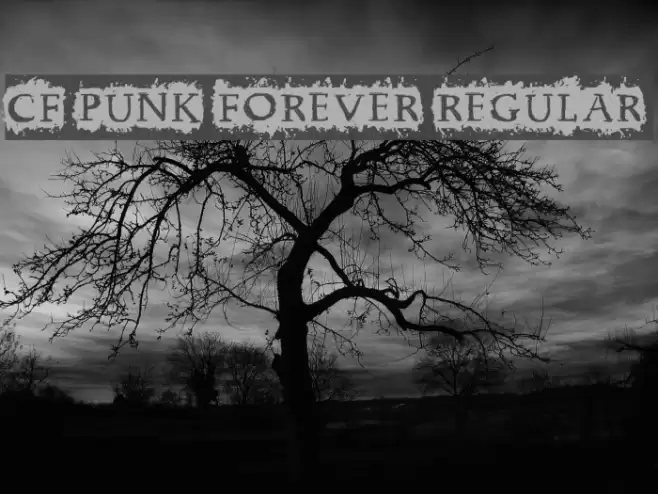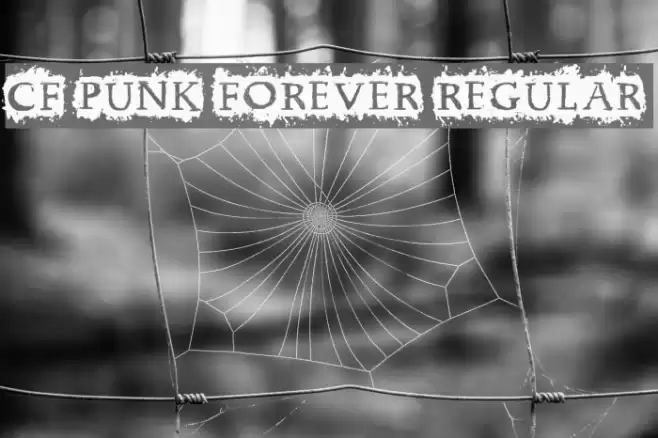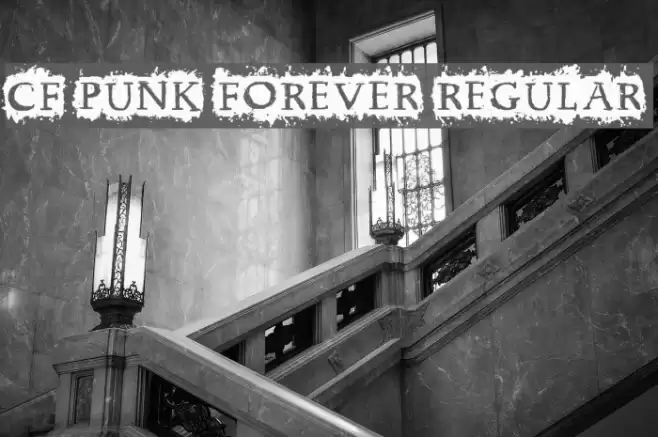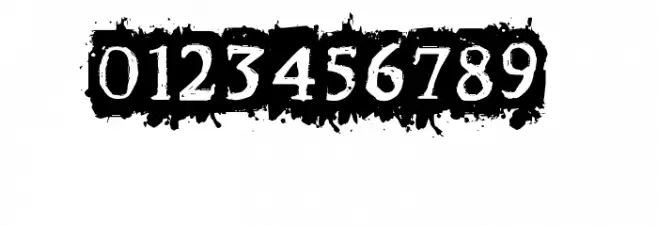
CF Punk Forever Regular Font
CF Punk Forever Regular Description
This font features a bold and distressed style, characterized by its rough, textured edges that give it a grunge and rebellious appearance. The uppercase letters are prominent and impactful, with a strong presence that commands attention. The numbers follow the same rugged aesthetic, ensuring consistency across all characters. The font's unique design makes it ideal for projects that require a bold statement, such as music album covers, posters, or any creative work that seeks to convey a sense of edginess and nonconformity.
A bold, distressed font with a grunge aesthetic, perfect for impactful designs from Uncategorized fonts.
- Proposed Projects: Ideal for music album covers, edgy posters, and creative projects needing a rebellious touch.
- Overall Style: Grunge, Rebellious
- Use Case: Headlines, Posters, Album Covers